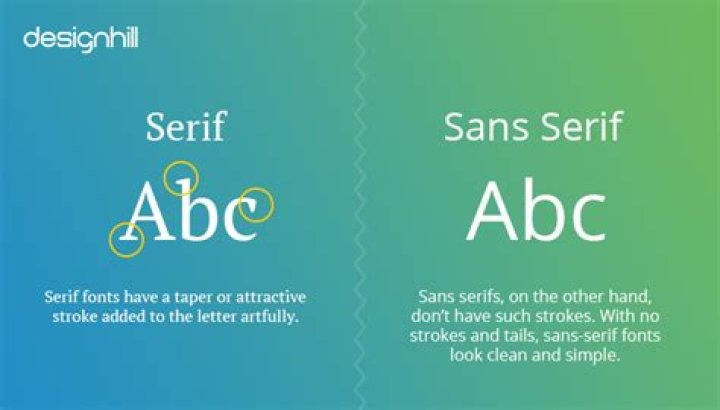
Similarly, what is the difference between a serif font and a sans serif font?
A serif is a decorative stroke that finishes off the end of a letters stem (sometimes also called the “feet” of the letters). In turn, a serif font is a font that has serifs, while a sans serif is a font that does not (hence the “sans”).
Also, what does sans serif font mean? Sans serif typefaces are considered more modern than serif typefaces. They lack the strokes that distinguish a serif typeface, hence the use of the French word "sans," which means “without.” Sans serif typefaces are often used to signify something clean, minimal, friendly, or modern.
Also question is, what is the serif of a font?
r?f/) is a small line or stroke regularly attached to the end of a larger stroke in a letter or symbol within a particular font or family of fonts.
Which font is easier serif or sans serif?
Serif fonts are usually easier to read in printed works than sans-serif fonts. This is because the serif make the individual letters more distinctive and easier for our brains to recognise quickly. Without the serif, the brain has to spend longer identifying the letter because the shape is less distinctive.
What font is easiest to read on paper?
Design Decoded: The Top 12 Easy to Read Fonts- Helvetica. Along with Georgia, Helvetica is considered to be one of the most easily read fonts according to The Next Web.
- PT Sans & PT Serif. Can't decide whether serif or sans-serif is for you?
- Open Sans.
- Quicksand.
- Verdana.
- Rooney.
- Karla.
- Roboto.
What is the most common sans serif font?
Common sans-serif fontsHelvetica is the granddaddy here, but Arial is more common on modern OS's.
What is the most commonly used font?
Four Common Font Types and When to Use Them- Serif. Serif fonts are the go-to for elegant and professional designs.
- Sans-Serif. Throughout history sans-serifs were rejected in favor of their more elegant cousins, but the bold and legible typeface is now used to represent modernity, simplicity, and efficiency.
- Script.
- Decorative/Display.
Why is Helvetica so popular?
Helvetica, in particular, became popular so quickly, due to its legibility and neutrality. It's easy to see why it was so widely appreciated by the design community. It doesn't convey any meaning in itself, and as a result, it's applicable to very different contexts.What is the main difference between sans serif and old style?
Serif fonts have that extra stroke or decorative design on the end of letters. Whereas Sans-Serif doesn't have any such design or stroke. See the image below. Serif stands for stroke or line and Sans means “without”.What does kerning mean?
In typography, kerning is the process of adjusting the spacing between characters in a proportional font, usually to achieve a visually pleasing result. Kerning adjusts the space between individual letter forms, while tracking (letter-spacing) adjusts spacing uniformly over a range of characters.What fonts are sans serif in Microsoft Word?
A category of typefaces that do not use serifs, small lines at the ends of characters. Popular sans serif fonts include Helvetica, Avant Garde, Arial, and Geneva. Serif fonts include Times Roman, Courier, New Century Schoolbook, and Palatino.Is Times Roman a serif font?
Times New Roman is a serif typeface. It was commissioned by the British newspaper The Times in 1931 and conceived by Stanley Morison, the artistic adviser to the British branch of the printing equipment company Monotype, in collaboration with Victor Lardent, a lettering artist in The Times's advertising department.Is calibri a sans serif fonts?
Calibri (/k?ˈliːbri/) is a sans-serif typeface family designed by Luc(as) de Groot in 2002–2004 and released to the general public in 2007, with Microsoft Office 2007 and Windows Vista. Calibri is part of the ClearType Font Collection, a suite of fonts from various designers released with Windows Vista.Which one is not a sans serif font?
A category of typefaces that do not use serifs, small lines at the ends of characters. Popular sans serif fonts include Helvetica, Avant Garde, Arial, and Geneva. Serif fonts include Times Roman, Courier, New Century Schoolbook, and Palatino. According to most studies, sans serif fonts are more difficult to read.Why do serifs exist?
Serifs give the eye a curve to hug. When carved into stone, serifs allow words to appear aligned. Hence, the Victorians used serifs in all of their typefaces, and they were common in Italian Renaissance architecture. They were seen as “Roman.” Today, the names of computerized fonts (Times New Roman, Comic Sans, etc.)When should you use serif fonts?
We're talking, of course, about serif fonts. Serif fonts were often used in the past as they work particularly well for the printed word – the small strokes projecting from the main stroke of each character (the serif) helps letters to stand out clearly, which makes the brain recognize words and letters more readily.Is Arial a serif?
Times New Roman's classic, understated lettering is perhaps the best-known serif font, created for the publishing giant, The Times, in 1932. These fonts are ideal for more formal occasions and look stunning engraved into metals as they give a crisp, easy-to-read finish.